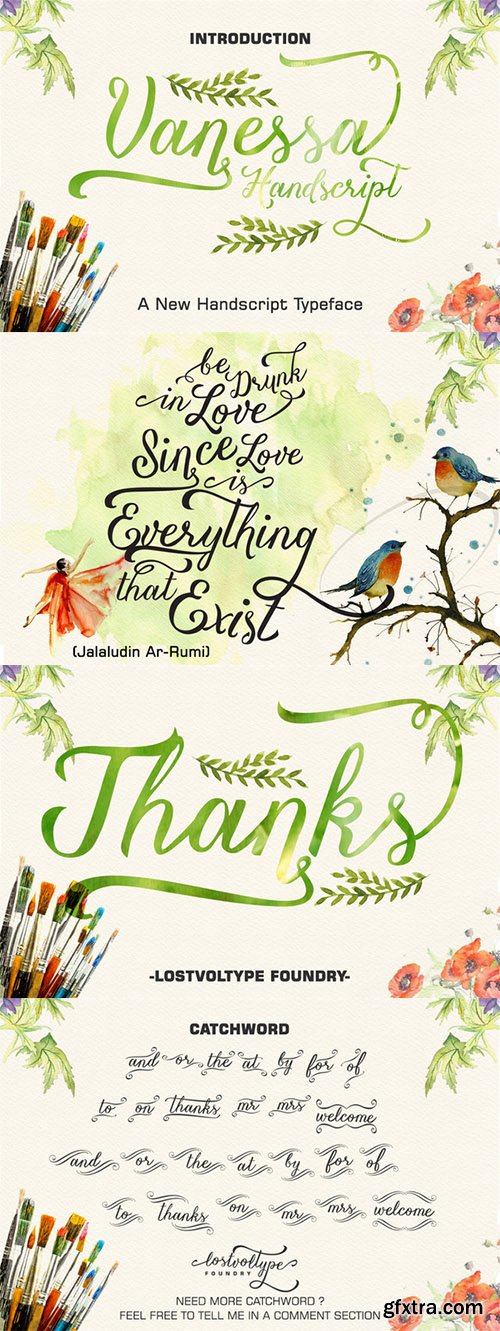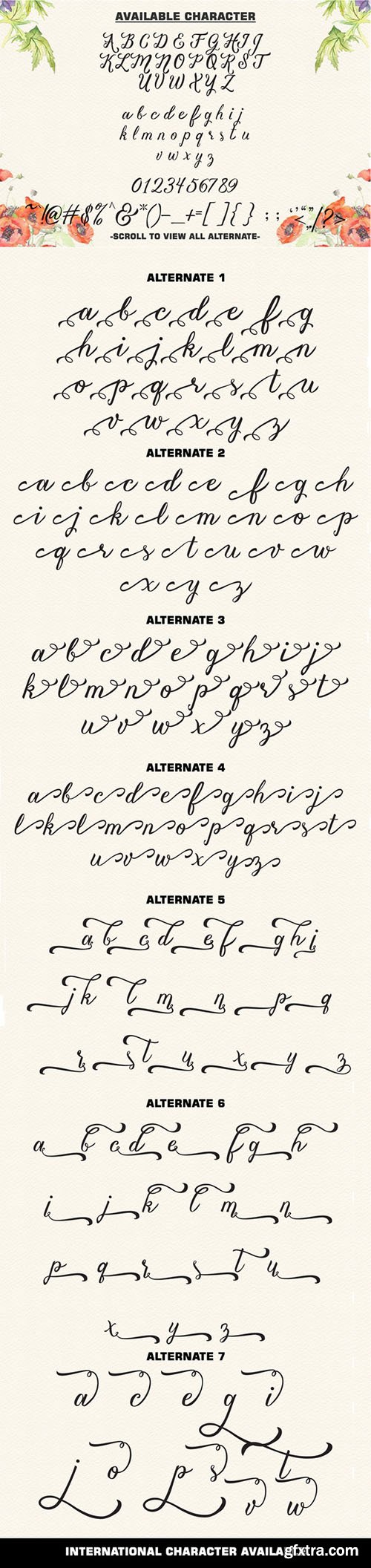
• Vanessa Handscript is a new hand written font. Available for both personal and commercial use. No extended license is required. Download and use Vanessa Handscript for anything and everything.Vanessa Handscript come with 402 characters there 202 alternate characters. see all alternate on third poster to view all alternate characters.  enable the OpenType Stylistic alternates, you need a program that supports OpenType features such as Adobe Illustrator CS, Adobe Indesign & CorelDraw X6-X7.